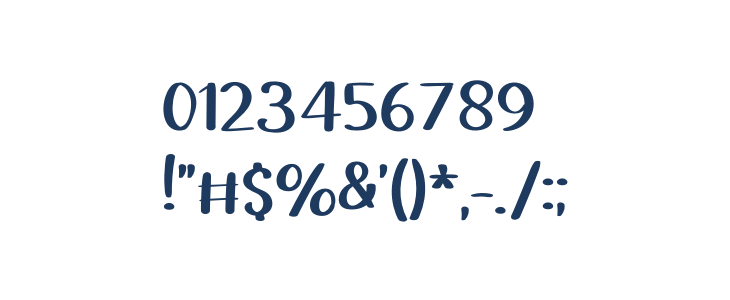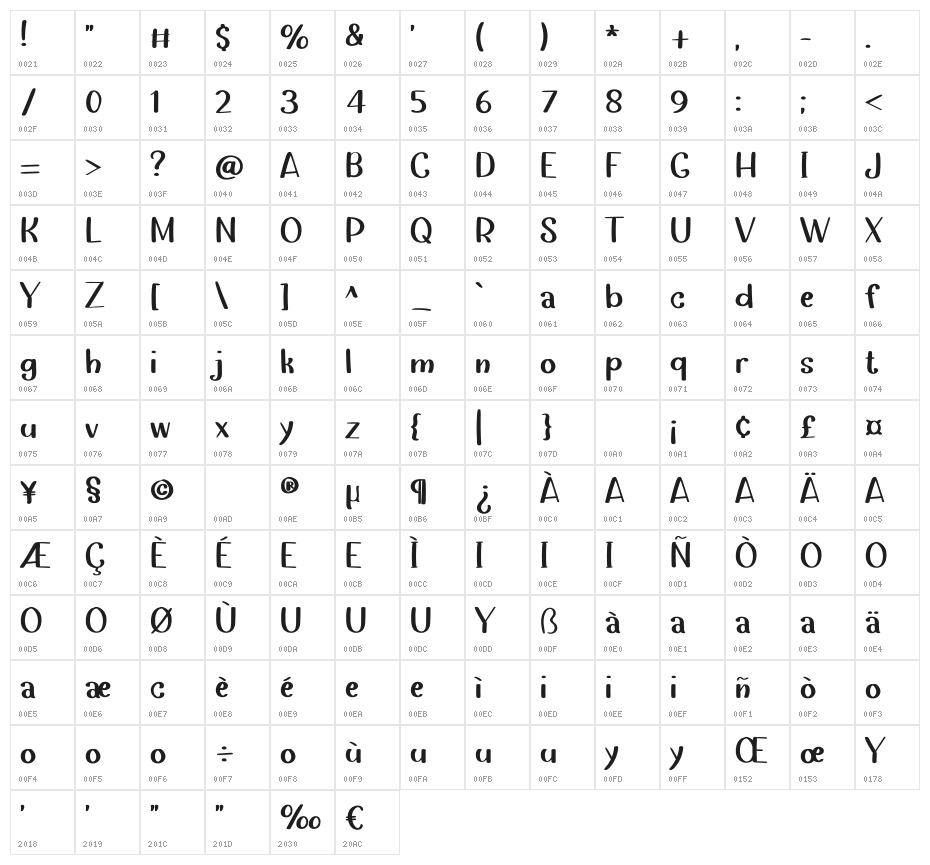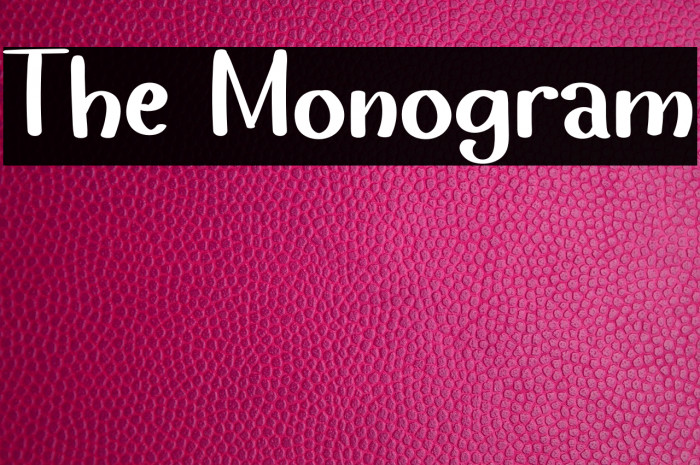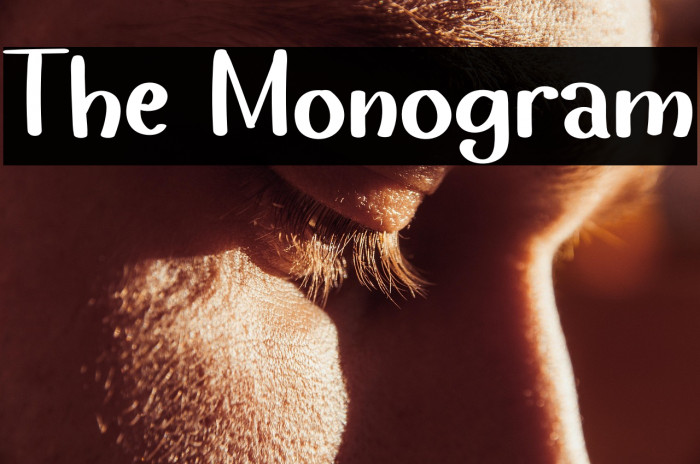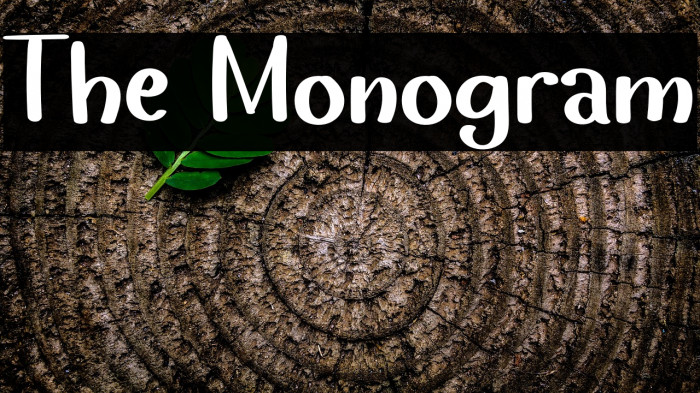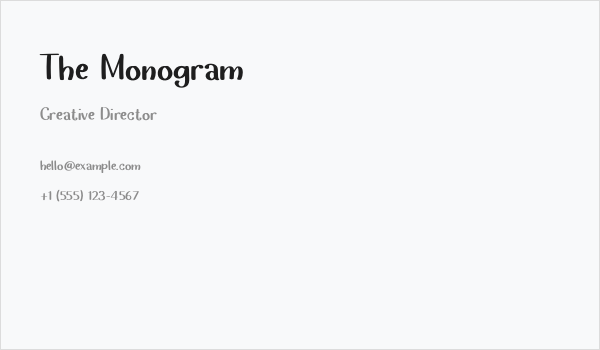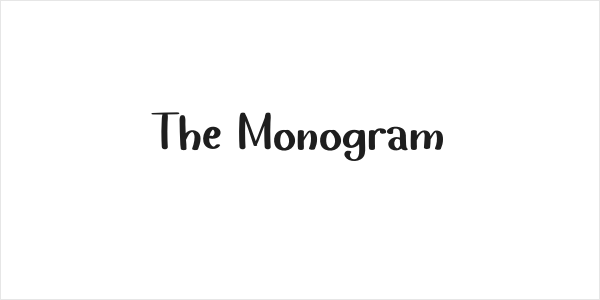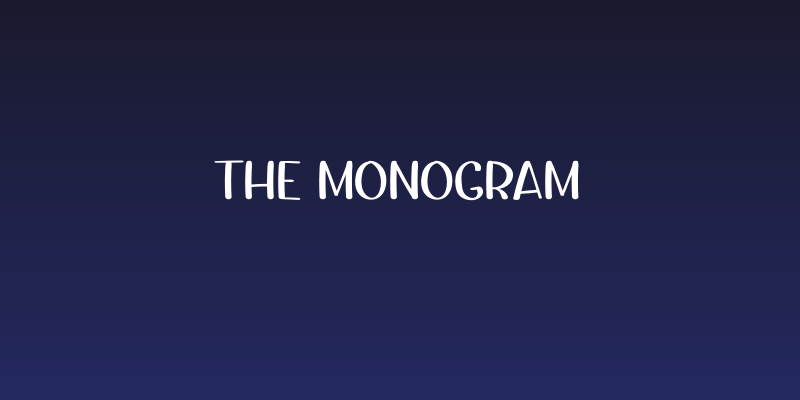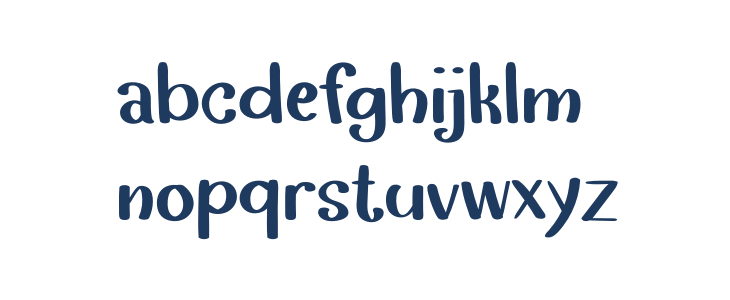
The Monogram Font
The Monogram Description
This font features a playful and whimsical style with a handwritten appearance. The uppercase letters are bold and slightly irregular, giving a casual and friendly vibe. The lowercase letters maintain this playful aesthetic, with rounded edges and varying stroke thicknesses that add to its charm. The numerals are consistent with the overall style, offering a cohesive look. Special characters are included, maintaining the same playful and approachable design. This font is ideal for projects that require a personal touch or a fun, informal tone.
| Use Case | Headlines, Logos, Invitations |
| Proposed Projects | Ideal for greeting cards, children's books, playful branding, and casual invitations. |